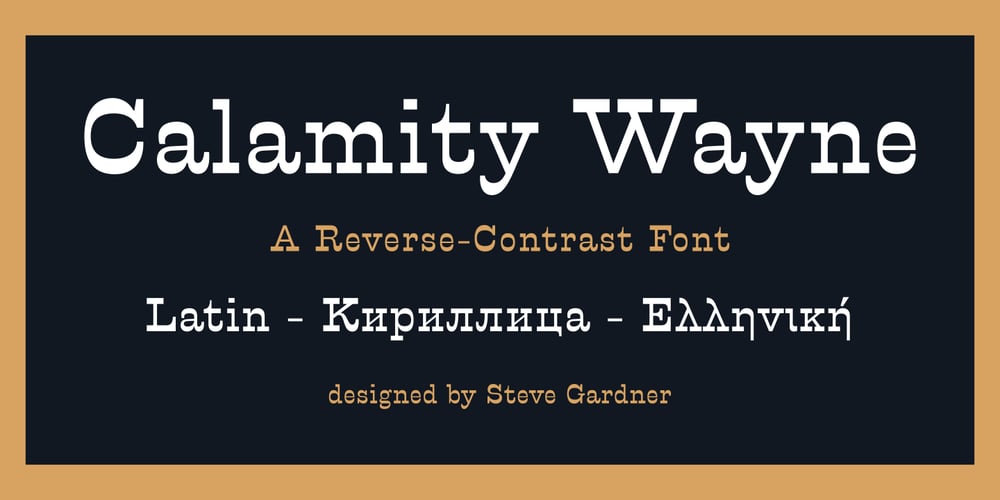
Calamity Wayne
Calamity Wayne font
Calamity Wayne Font Family was designed by Steve Gardner and published by explogos. Calamity Wayne contains 1 styles and family package options. Calamity Wayne is a reverse-contrast slab serif, inspired by the ‘wild west’ French Clarendons (aka Italians or Egyptians) of the late-1800s. Despite the idiosyncrasies that make it ideal for display and headline uses, it is also surprisingly legible in text settings. Calamity Wayne supports Latin, Cyrillic and Greek, and is available in OTF and TTF formats. Acknowledgement: I am very grateful to David Jonathan Ross (https://djr.com) for his support and encouragement.